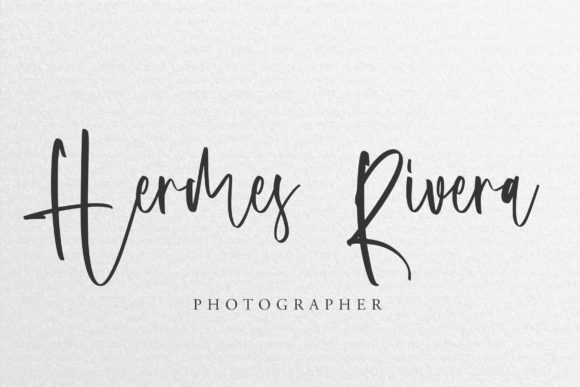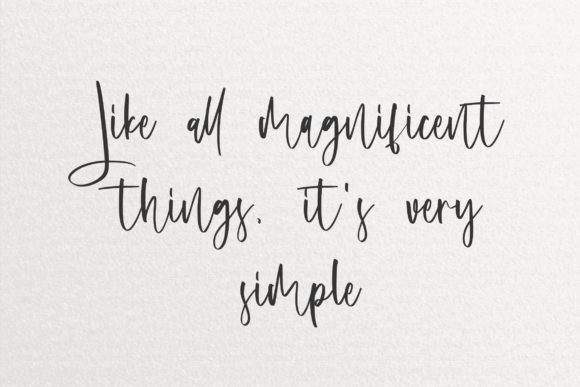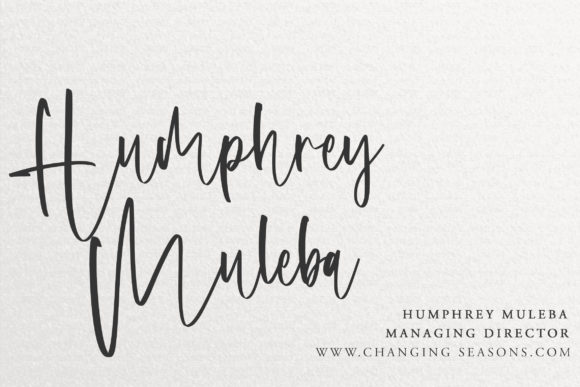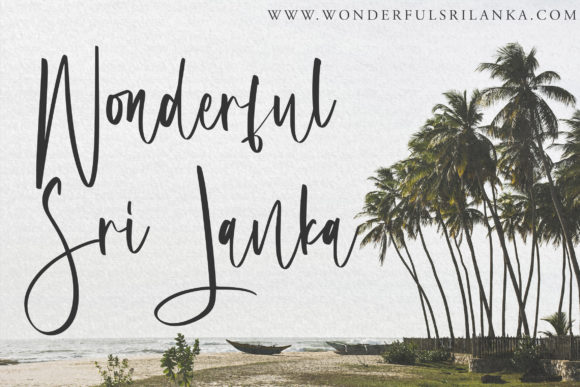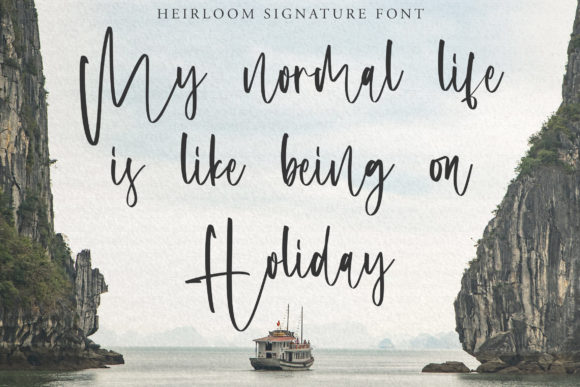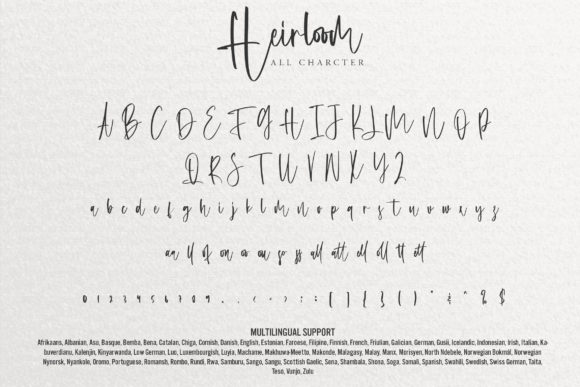
Introducing Heirloom Font: Elevate Your Designs with Elegance and Sophistication
In the world of typography, fonts play a crucial role in conveying the tone and personality of a design. For designers and crafters seeking a font that exudes class, elegance, and modernity, Heirloom Font is an exceptional choice. This beautiful, fashionable, and relaxed script font is perfect for creating stunning logos, branding materials, invitations, stationery, wedding designs, social media posts, and more.
The Essence of Heirloom Font
Heirloom Font boasts a classy, elegant, and modern look that sets it apart from other script fonts. Its unique blend of sophistication and approachability makes it an ideal choice for designers who want to add a touch of luxury to their creations. Whether you’re working on a wedding invitation, a fashion brand’s logo, or a social media post, Heirloom Font is sure to impress.
Key Features of Heirloom Font
- Beautiful and Elegant: Heirloom Font features flowing lines and delicate curves, giving it a refined and sophisticated appearance.
- Fashionable and Modern: The font’s contemporary look makes it perfect for designers who want to stay on-trend.
- Relaxed and Approachable: Despite its elegance, Heirloom Font remains approachable and easy to read, making it suitable for a wide range of applications.
- Versatile: Heirloom Font can be used for various design projects, from logos and branding to invitations and social media posts.
Uses of Heirloom Font
Heirloom Font’s versatility makes it an excellent choice for various design projects, including:
- Logos and Branding: Create a lasting impression with a custom logo that showcases your brand’s personality.
- Invitations and Stationery: Add a touch of elegance to your wedding invitations, party invites, or business stationery.
- Wedding Designs: Make your wedding designs truly special with Heirloom Font’s romantic and sophisticated feel.
- Social Media Posts: Elevate your social media presence with eye-catching posts that feature Heirloom Font.
Why Choose Heirloom Font?
With so many fonts available, why choose Heirloom Font? Here are a few compelling reasons:
- Unique and Exclusive: Heirloom Font’s distinctive style sets it apart from other fonts, ensuring your designs stand out.
- Easy to Read: Despite its elegant appearance, Heirloom Font remains easy to read, making it perfect for body text and captions.
- High-Quality: Heirloom Font is crafted with attention to detail, ensuring a high-quality appearance in any design.
Tips for Using Heirloom Font
To get the most out of Heirloom Font, consider the following tips:
- Pair with Contrasting Fonts: Combine Heirloom Font with contrasting fonts to create visual interest and hierarchy.
- Experiment with Colors: Try Heirloom Font with different colors to find the perfect match for your design.
- Pay Attention to Spacing: Adjust the spacing between letters and lines to ensure optimal readability and aesthetics.
Heirloom Font is a stunning script font that offers a perfect blend of elegance, sophistication, and modernity. Its versatility, readability, and high-quality appearance make it an excellent choice for designers and crafters seeking to elevate their designs. Whether you’re working on a logo, invitation, or social media post, Heirloom Font is sure to impress. So why wait? Discover the beauty of Heirloom Font and take your designs to the next level.